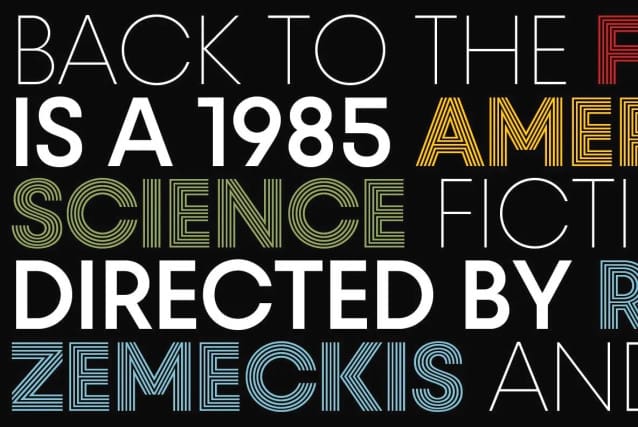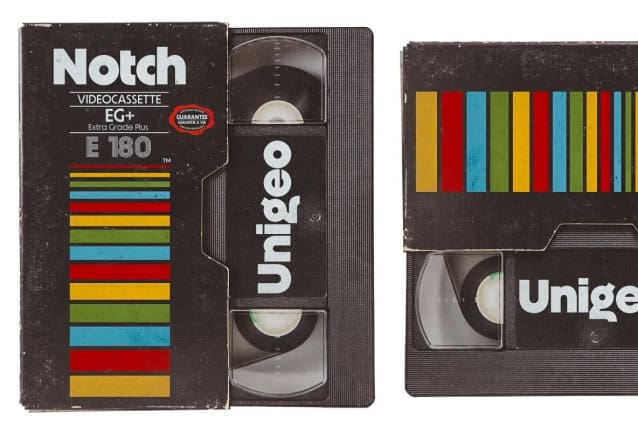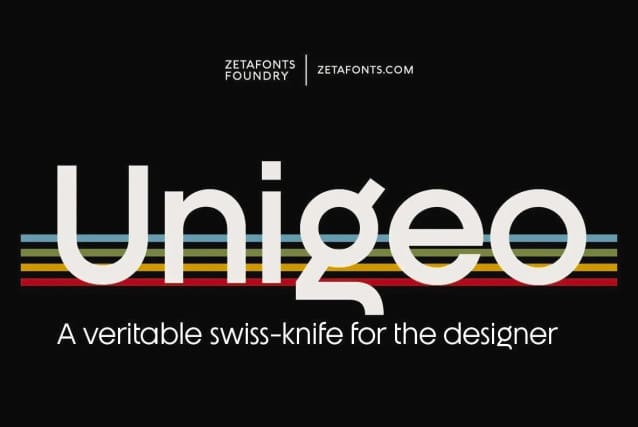
Unigeo Font Family
Unigeo Font Family, is a geometric form-based sans serif font family manufactured by Zetafonts. It aims at giving a new perspective to the ever-useful geometric sans genre, by adding a vintage flair to selected letters while keeping optical adjustments to the minimum, to prioritize the modular, constructed look aspect of the typeface.
Furthermore, like every vintage gaming system, Unigeo Font has been developed with different “memory versions”:32, 64 and 128. The main family, Unigeo 64, is display and logo-design oriented, featuring tight tracking and iconic signature letterforms, and referencing vintage design and typefaces from the photo-lettering era. These letterforms are substituted in the Unigeo 32 variant with more contemporary shapes, resulting in a workhorse geometric sans, highly optimized for text use but still suited for logo design and display use thanks to its wide weight range. Last but not least, the Unigeo 128 subfamily gives the same skeleton a striped treatment reminescent of optical art and modernist computer logos.
All Unigeo families are developed in eight weights, ranging from Thin to Extrabold, for a total of 40 styles, each provided with an extended character set covering languages using latin, cyrillic and greek glyphs. Full Open Type Features are provided, including positional numbers, legatures and alternate glyphs, as well as a variable font version for each subfamily.